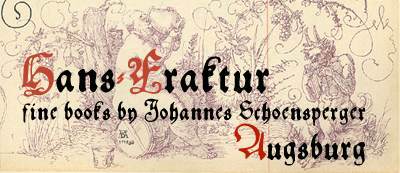
HansFraktur
Hans Fraktur font by Design H. Schoensperger 1517 is a free medieval gothic typeface. Thick, inky strokes knot together with ornate curls and hooks, echoing hand-cut letters from old parchment and church doors. The texture feels dense and ceremonial, with just enough roughness to keep it from looking sterile or digital.
Using Hans Fraktur, titles instantly take on the mood of fantasy sagas, metal band logos, renaissance fair posters, vintage beer labels, game interfaces, or historical event branding. This free font works best at larger sizes where its intricate shapes can breathe, so give it generous spacing and pair it with a simple modern sans for supporting text to keep everything readable and grounded.